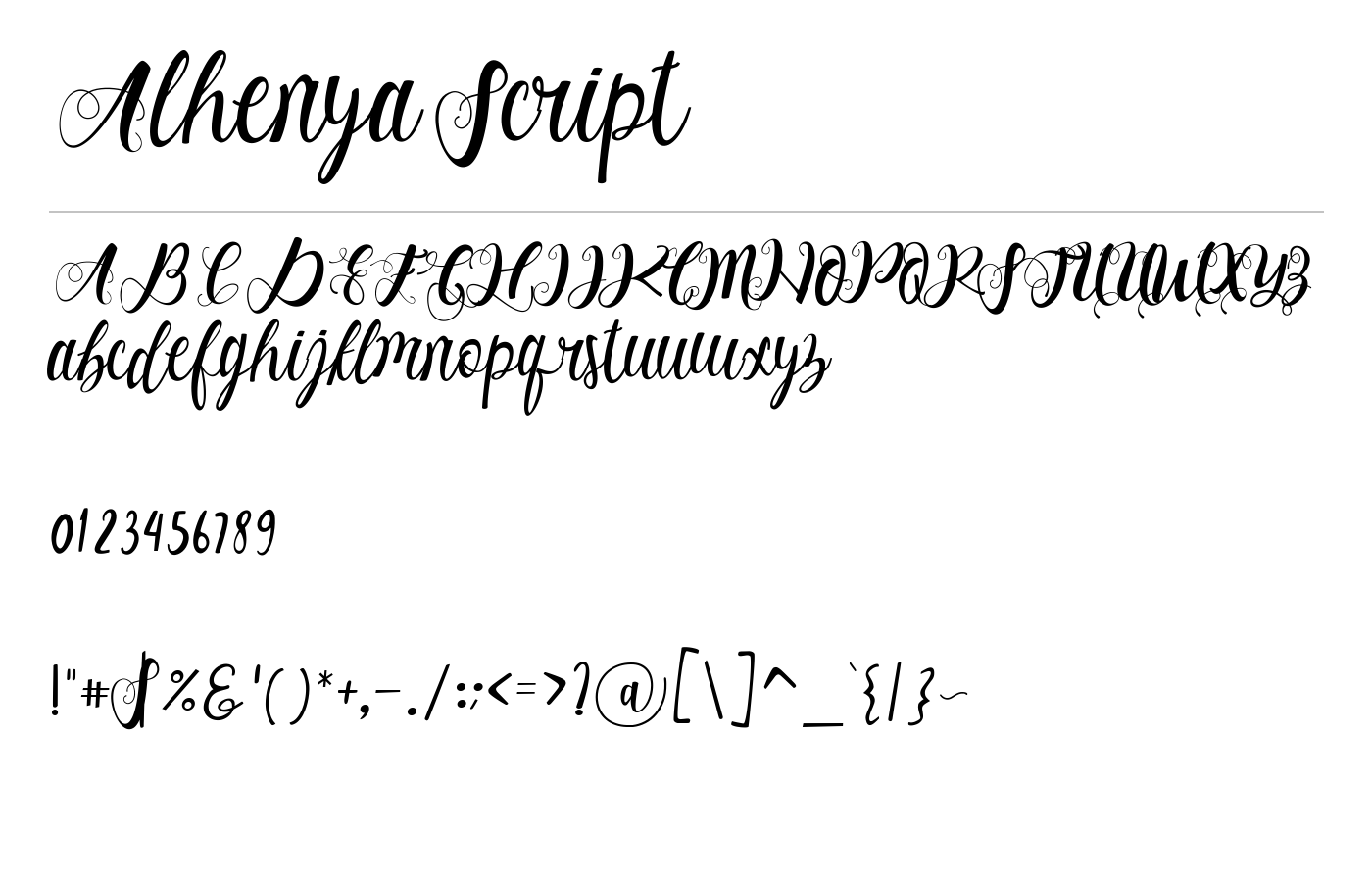
Alhenya Script is an elegant and decorative script font featuring graceful, flowing strokes with intricate swashes, especially in the uppercase letters. Its slender, medium-weight forms convey a sophisticated and stylish personality, making it ideal for luxury branding, invitations, and feminine designs where a touch of charm and refinement is desired. This font works best for headlines and logos where its ornamental details can shine without sacrificing readability.
Alhenya Script Font
About Alhenya Script Font
| Font family | Alhenya Script Font |
| Designer | Alstudiossa |